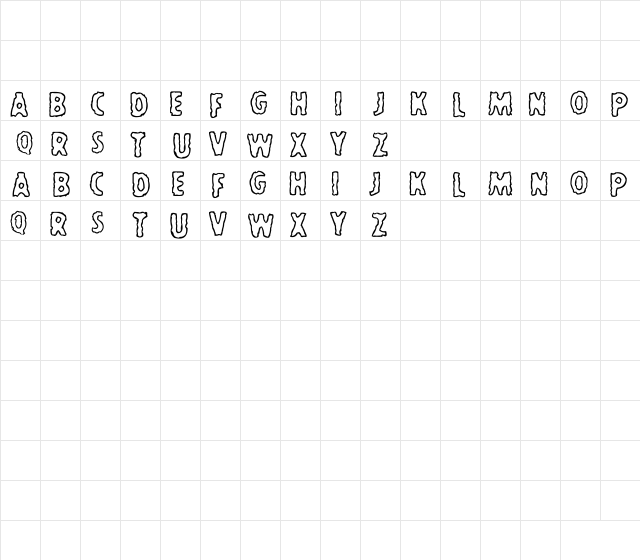
doggiestyle hardcore Free Font
doggiestyle hardcore
Style: hardcore
Design Context for doggiestyle
doggiestyle is a composed and adaptable typeface that performs quietly and consistently across a wide range of design contexts.